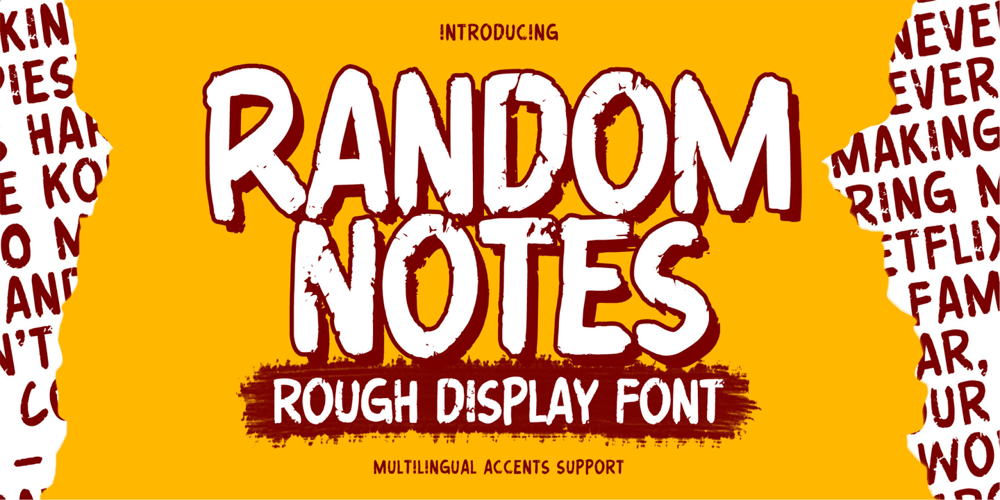
Random Notes Font Family was designed by Abdul Malik Wisnu, Anang Fibriyanto and published by Gassstype. Random Notes contains 1 styles and family package options. Hello Everyone,introduce our new product Random Notes is a Rough Display Font Handmade Font is a Strong Style and classy style, This font is great for your next creative project such as logos, printed quotes, invitations, cards, product packaging, headers, Logotype, Letterhead, Poster, Label, cartoon, and comic etc.This font is great for your creative projects such as watermark on photography, and perfect for logos & branding, photography, invitation.Random Notes a natural handwritten feel. This handmade font will make your design has a beautiful natural touch for each details.